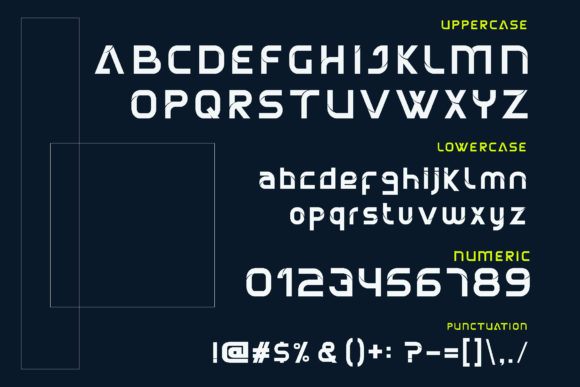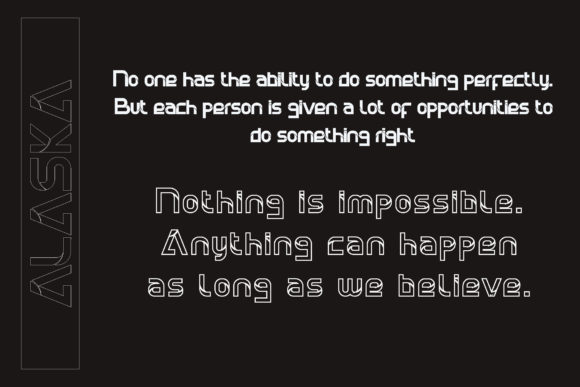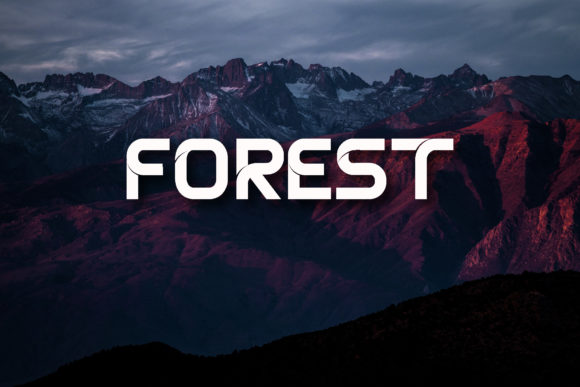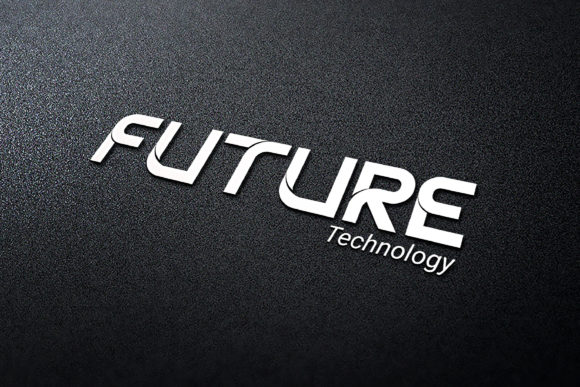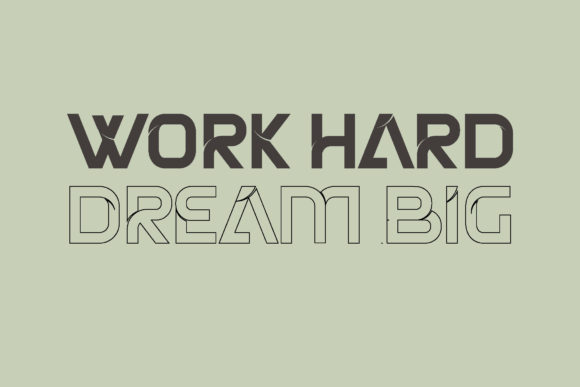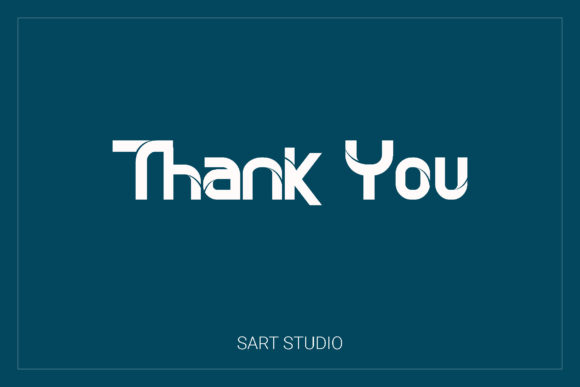
Introducing Alaska Font: The Cool, Bold, and Techno Display Font
Are you tired of using the same old fonts for your designs? Look no further! Alaska Font is a game-changer. This cool, bold, and techno-looking display font is perfect for adding a unique touch to your web designs, business cards, and more. In this article, we’ll dive into the features and benefits of Alaska Font, and explore how it can elevate your design game.
What is Alaska Font?
Alaska Font is a display font designed to make a statement. Its bold and techno-inspired design makes it perfect for headlines, titles, and any other text that needs to grab attention. The font’s sleek and modern aesthetic is sure to impress, and its versatility makes it suitable for a wide range of design projects.
Key Features of Alaska Font
- Cool and Bold Design: Alaska Font’s unique design is sure to turn heads. Its bold lines and techno-inspired aesthetic make it perfect for creating eye-catching designs.
- Techno-Looking: The font’s techno-inspired design gives it a futuristic feel that’s perfect for designs that need to convey innovation and cutting-edge technology.
- Display Font: Alaska Font is designed specifically for display purposes, making it perfect for headlines, titles, and other text that needs to stand out.
- Versatile: The font’s versatility makes it suitable for a wide range of design projects, from web designs to business cards, posters, and more.
Benefits of Using Alaska Font
So why choose Alaska Font for your design projects? Here are just a few benefits of using this amazing font:
- Adds a Unique Touch: Alaska Font’s bold and techno-inspired design adds a unique touch to any design project, setting it apart from the crowd.
- Enhances Readability: The font’s clear and bold design makes it easy to read, even at small sizes.
- Increases Engagement: The font’s eye-catching design is sure to grab attention and increase engagement with your audience.
- Perfect for Branding: Alaska Font’s unique design makes it perfect for branding projects, helping to create a memorable and recognizable identity for your business.
How to Use Alaska Font in Your Designs
Using Alaska Font in your designs is easy. Here are a few tips to get you started:
- Pair it with Other Fonts: Alaska Font pairs well with other fonts, making it easy to create a unique and visually appealing design.
- Use it for Headlines: The font’s bold design makes it perfect for headlines and titles.
- Experiment with Colors: Alaska Font looks great in a variety of colors, so don’t be afraid to experiment and find the perfect color scheme for your design.
Alaska Font is a game-changing display font that’s perfect for designers and crafters looking to add a unique touch to their designs. Its cool, bold, and techno-inspired design makes it perfect for a wide range of design projects, from web designs to business cards and more. With its versatility, readability, and eye-catching design, Alaska Font is sure to become a go-to font for designers everywhere.